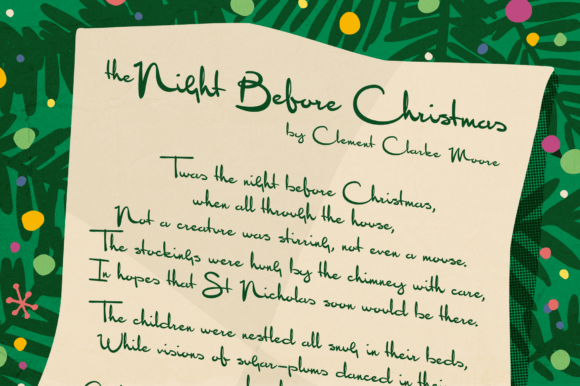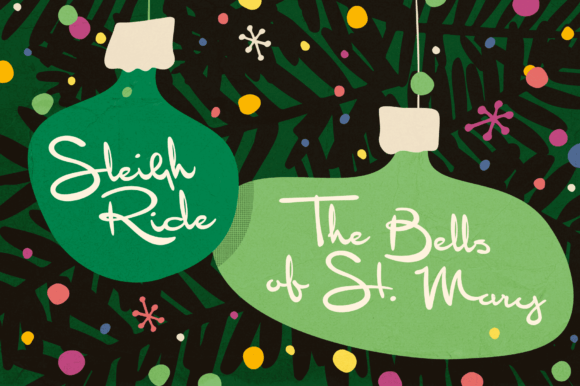
Sentimental Feeling Font
Sentimental Feeling is a script font that aims to capture the festive magic of Christmas with a retro design inspired by 1950s magazine editorials, classic movies, and real hand-written signatures. It’s a warm design that evokes Christmases of old, with a smooth brush-like flow and subtle human imperfections. It’s equally at home singing carols, sharing Xmas Eve stories, or serving cocktails at your New Years’ party.